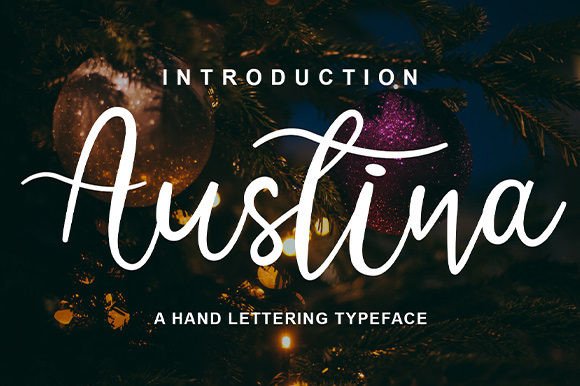
Austina Script Font
This is a lovingly modern script calligraphy, make your design more catchy and stylish by using this font! Introducing Austina Font. It’s designed and shared by Nico Muslib. It’s a charming script with an incredibly smooth feel. Use it to turn any design project into a true standout! Make your design more catchy and stylish by using this font! Attach on your website template, flyer, product, invitation, promotion stuffs, craft, magazine, cover, quote, merchandise or even just to post on your social media!